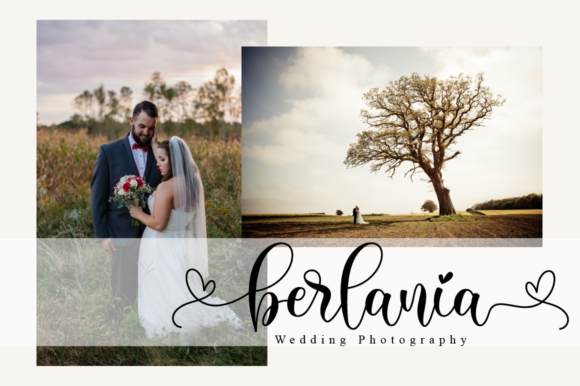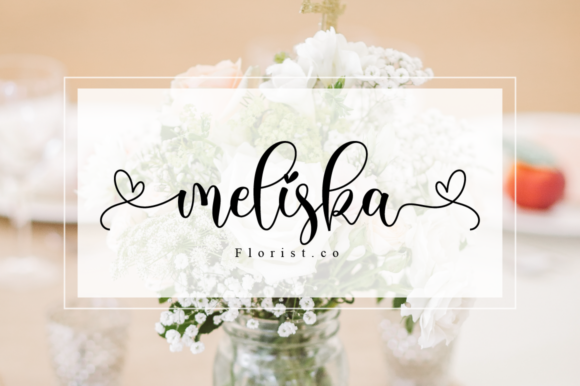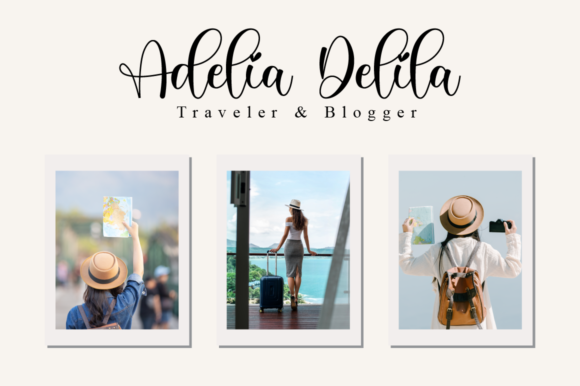
Introduction to Daslina Font
Do you remember the feeling of excitement when you stumble upon that perfect design resource? The one that instantly elevates your creative project to the next level? For designers, this moment is often the result of years of practice, patience, and dedication. But sometimes, it’s just about finding the right tool to bring your vision to life. And that’s exactly what the Daslina Font does – it’s the perfect blend of classy calligraphy and modern freshness.
With its high-quality design and transparent background, Daslina Font is an invaluable resource for any creative project. Whether you’re working on a logo, a brochure, or a website, this exquisite handwritten font is sure to impress. And the best part? It’s PUA encoded, making it easy to access all the glyphs and swashes you need to make your design truly unique. So, what are you waiting for? Download the Daslina Font for free and discover a whole new world of design possibilities.
Key Features of Daslina Font
- High-quality, vector-based font design for a seamless and scalable experience.
- Transparent background, ideal for creative projects requiring a clean and modern look.
- Designed with precision and care, featuring a unique and eye-catching design that sets it apart from other fonts.
- Perfect for use in creative projects, such as logos, graphics, and digital artwork, where a high-quality font is essential.
Honest Review: Daslina Font
As a designer, I’m always on the lookout for high-quality design resources that can elevate my creative projects. The Daslina Font is one such resource that caught my attention, and I’m excited to share my honest review with you.
- ✨ Unique and elegant design aesthetic that can add a touch of sophistication to any project.
- ✨ High-quality glyphs and characters that ensure readability and clarity.
- ✨ Transparent background, making it easy to use with any design element.
- ⚠️ Limited font sizes and styles available, which may not be suitable for complex projects.
- ⚠️ Some users may find the font too elegant, making it less suitable for bold or playful designs.
Overall, I’m impressed with the Daslina Font’s design quality and versatility. While it may not be suitable for every project, it’s a great addition to any design resource library. If you’re looking for a high-quality font for your next creative project, I’d definitely recommend checking it out – and it’s free to download, which is a bonus!
Tips for Getting the Most Out of Daslina Font
For the best results, use the Daslina Font with a transparent background to create a clean and minimalist design. Experiment with different font sizes and styles to achieve the desired look for your creative project.
The Daslina Font is suitable for various design projects, including:
- Branding and logos
- Presentations and reports
- Print materials, such as business cards or brochures